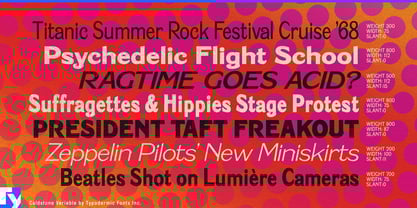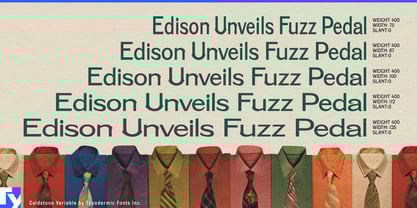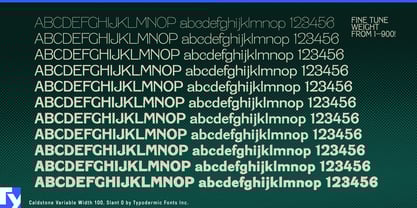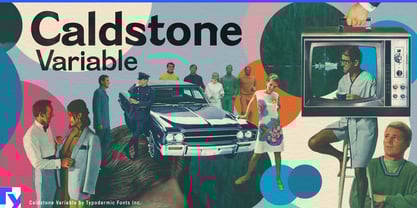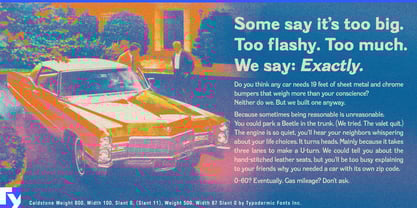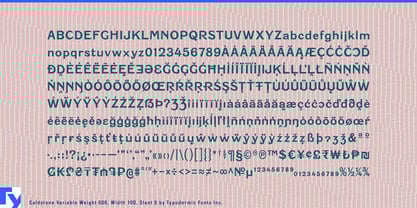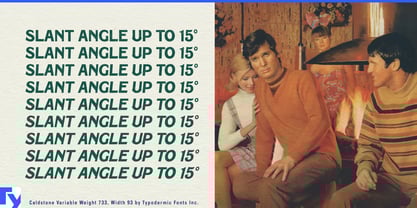
Caldstone Variable
Caldstone Variable brings the full creative range of the Caldstone family into a single, flexible file. Inspired by expressive sans-serif lettering of the 1910s and reimagined through the 1960s Edwardian revival, it blends decorative flourishes with clean geometry — now with full control over three independent axes: width, weight, and slant.
Slide smoothly from the slender elegance of Condensed Hairline to the commanding presence of Black Expanded. Adjust weight from delicate Hairline to bold Black, and set italics at any angle up to 15°, exceeding the fixed 11° slant of the static version. With 110 possible style combinations — all in one file — Caldstone Variable adapts to your project instead of forcing you to work within preset boundaries.
This flexibility makes it ideal for responsive web design, multi-platform branding, editorial layouts, and kinetic typography. It ensures a consistent voice across print, screen, and motion, while letting you fine-tune every typographic nuance.
For environments that don’t support variable fonts, Caldstone is also available as a traditional multi-file family, offering the same warmth, versatility, and historical character in a standard format.
Caldstone Variable is more than a typeface — it’s a toolkit for designers who want expressive charm, modern adaptability, and the precision to match any creative vision.